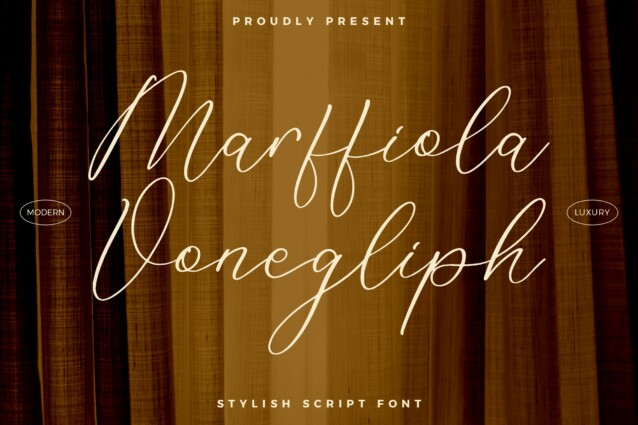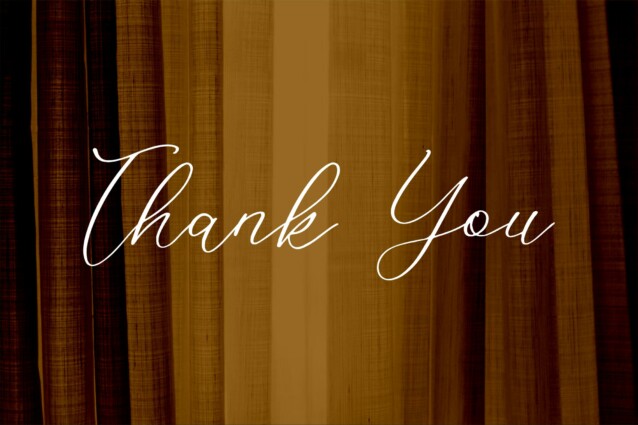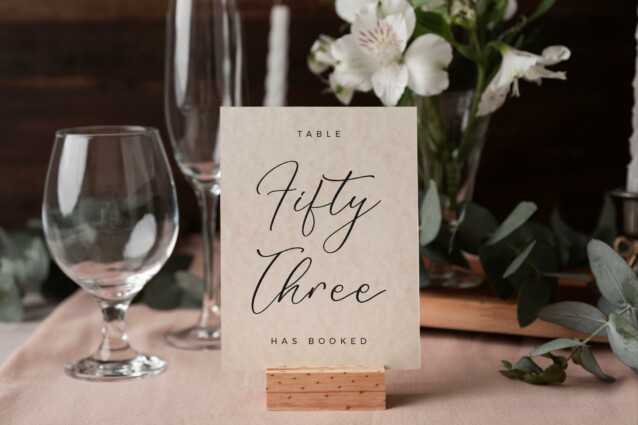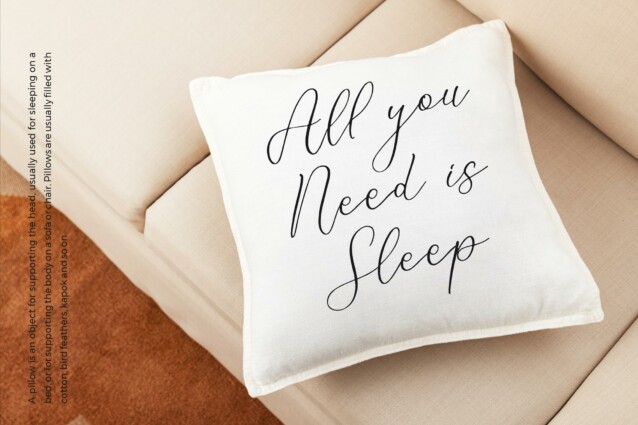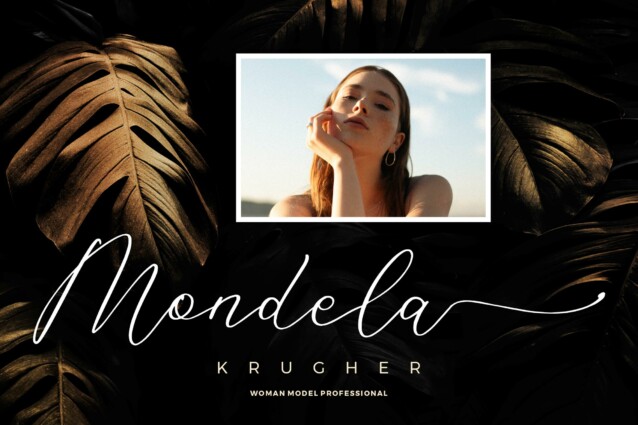
Marffiola Vonegliph Font is a stylish script font, suitable for any projects such as: logos, branding projects, homeware designs, product packaging, mugs, quotes, posters, shopping bags, t-shirts, book covers, name card, invitation cards, greeting cards, label, photography, watermark, special events, and all your other lovely projects that need a beautiful script taste.